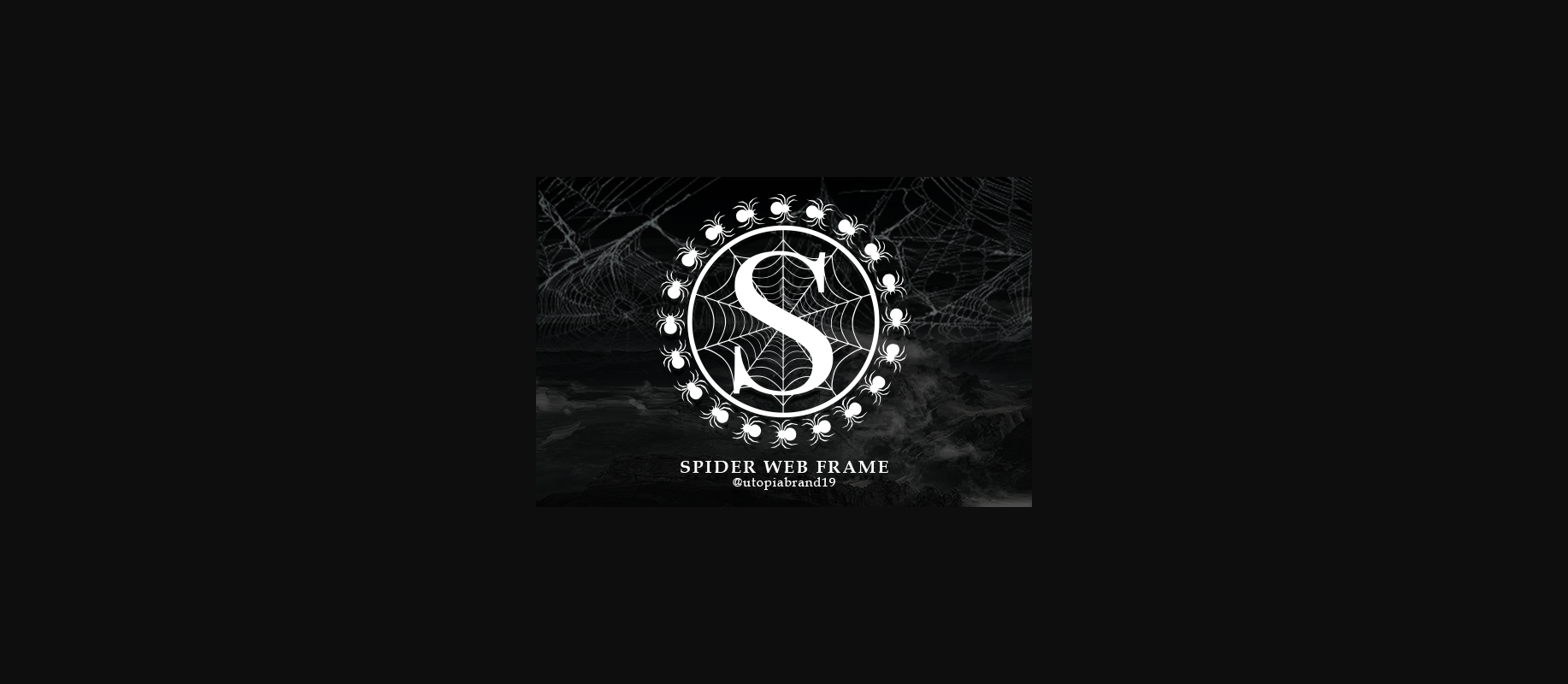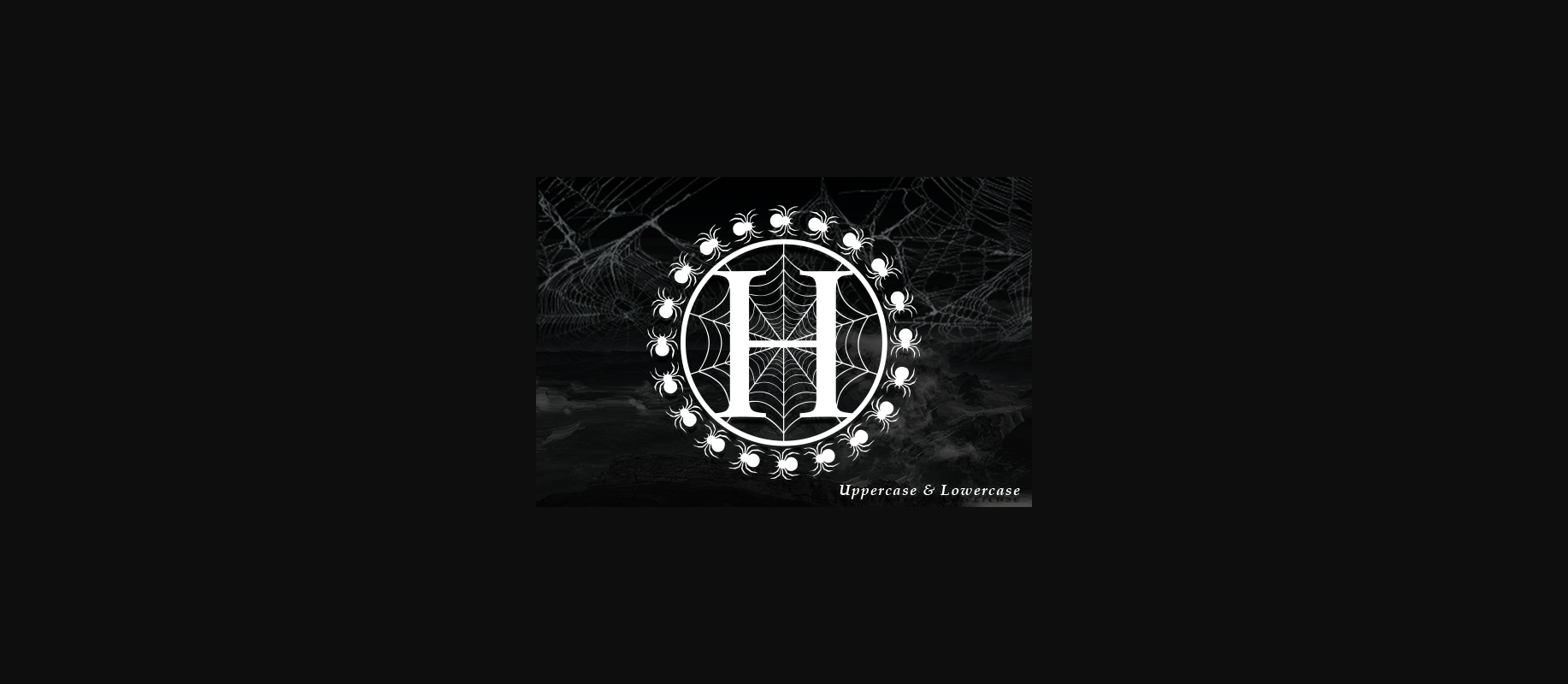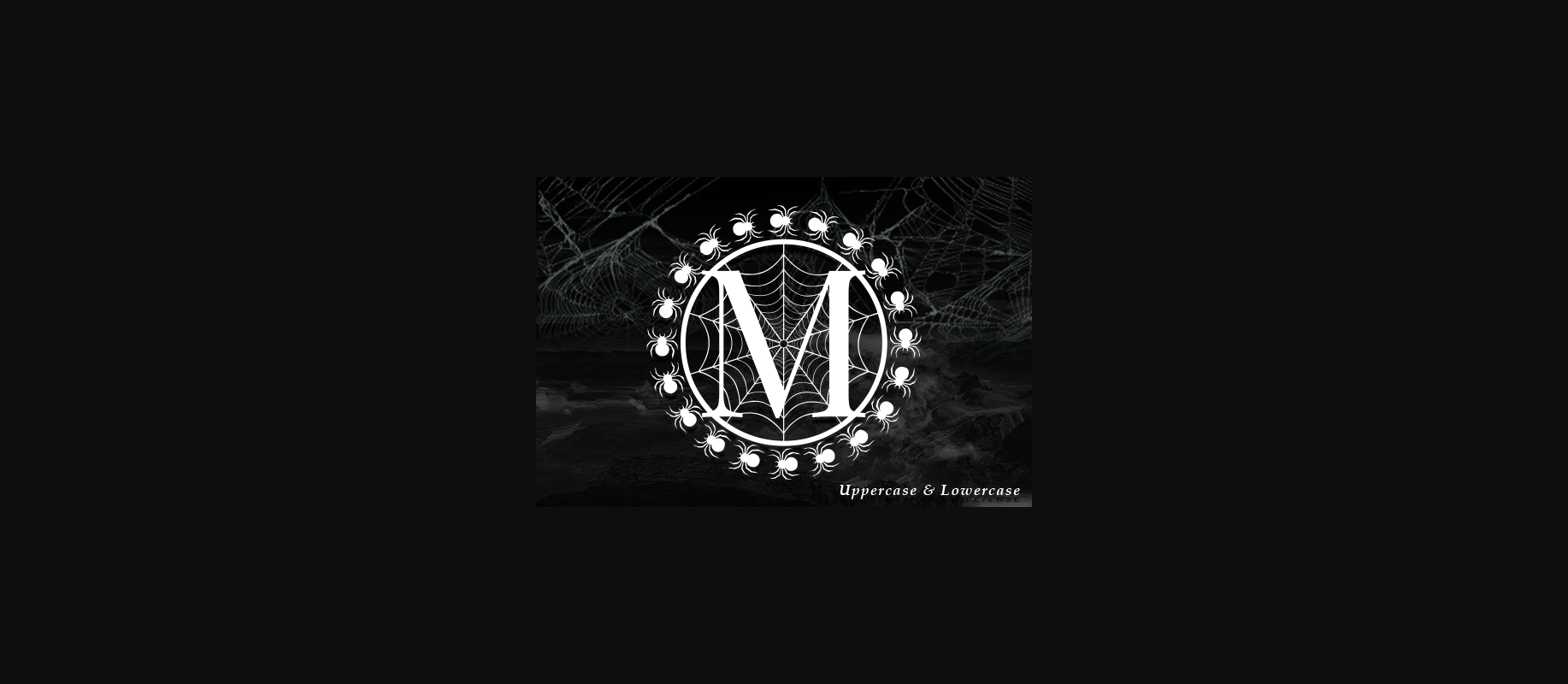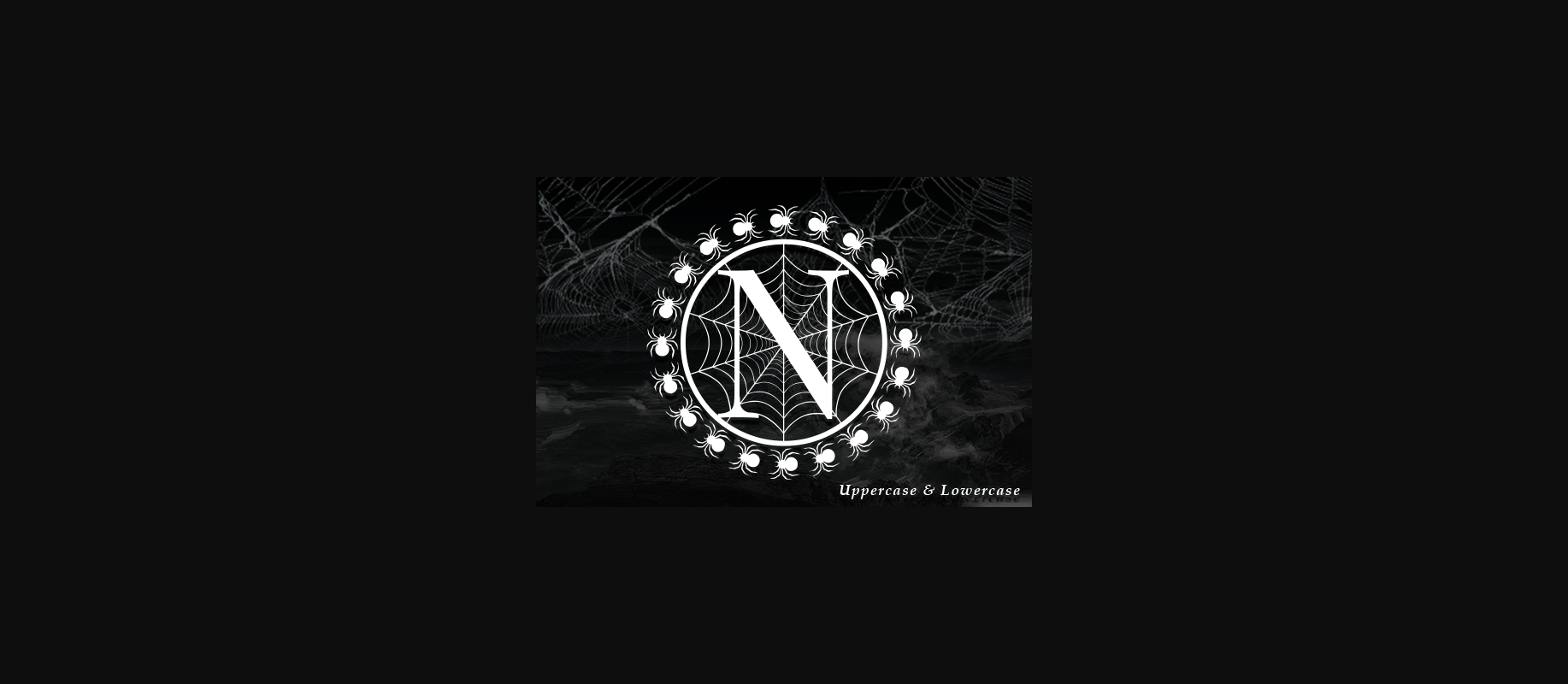
About Spider Web Frame Font
Spider Web Frame is a cool and highly detailed decorative font. Whether you use it for cartoon related designs, children games or just any creation that requires a lovely touch, this font will be an amazing choice.